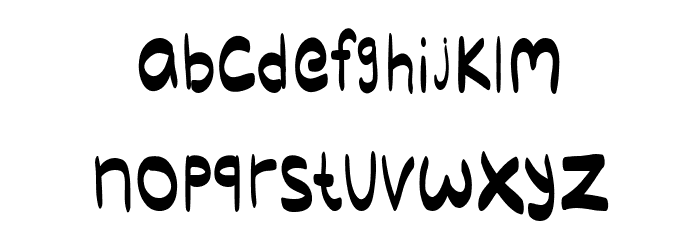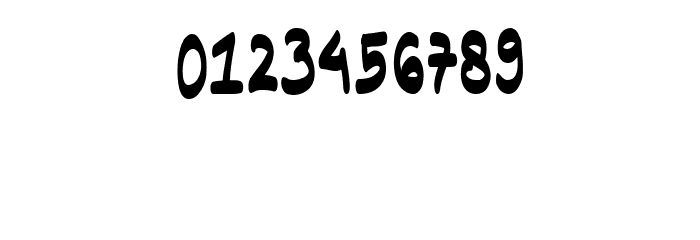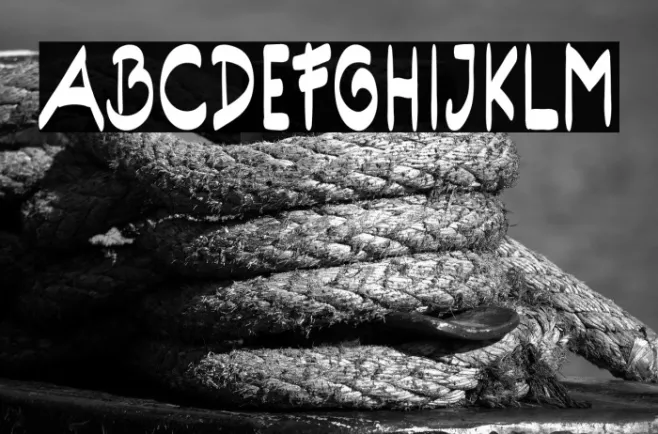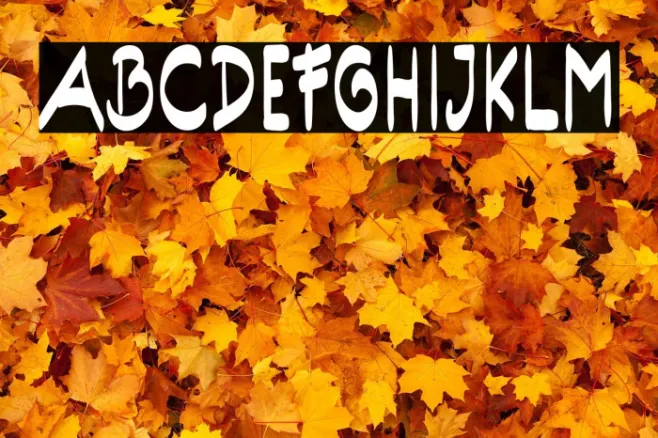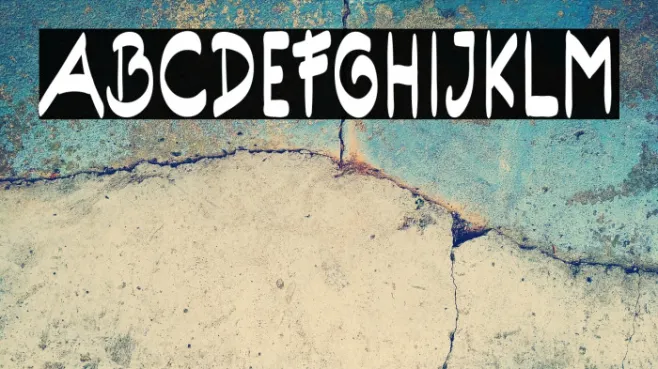
Odense Font
This font features a playful and whimsical style, characterized by its irregular and slightly uneven strokes that give it a hand-drawn appearance. The letters have a bold presence with varying thickness, adding to the casual and informal vibe. The uppercase and lowercase letters maintain a consistent style, with rounded edges and a slightly exaggerated form that enhances its quirky charm. The numerals and special characters follow the same design ethos, ensuring a cohesive look across all glyphs. This font is perfect for projects that require a fun and approachable aesthetic.
A playful, hand-drawn font with bold, irregular strokes and a whimsical style.
- Font: Odense
- Proposed Projects: Ideal for children's books, playful branding, greeting cards, and creative posters.
- Category: Handwritten